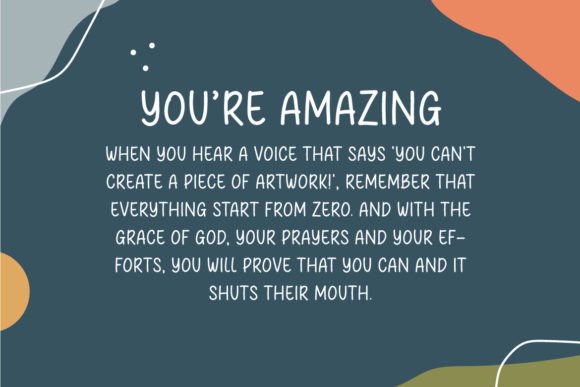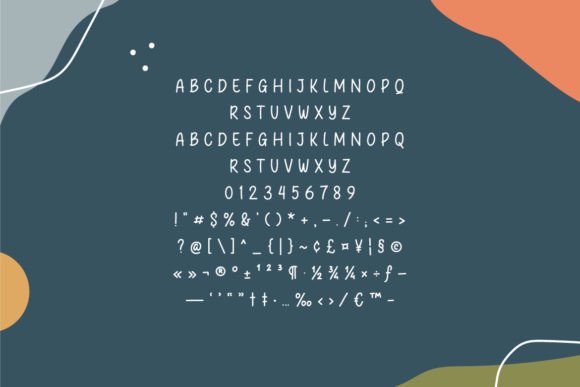
Introduction to Komican Font
**Komican** is a handwritten comic font.
Komican can be used in any work such as comic books, posters, school, flyers, book titles, advertisements, social media content, logos, and many more .
Key Features of Komican Font
Why Choose Komican Font?
Komican Font offers exceptional quality and versatility, making it a valuable addition to your design toolkit. Whether you’re creating for personal projects or commercial use, Komican Font delivers professional results.